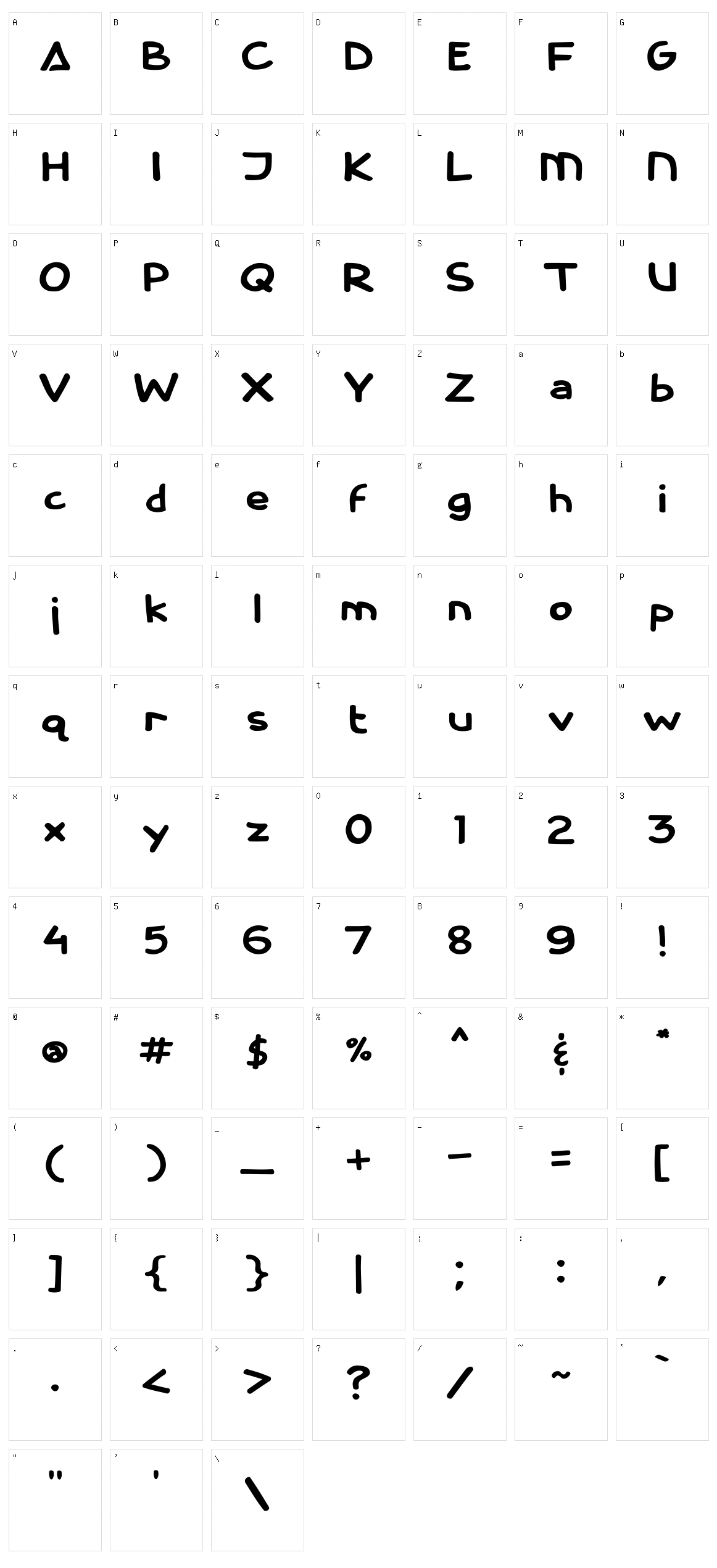
The free font Cassini Marker is carefully designed by letterpunch, showcasing a thoughtful balance of creativity and usability and falls under the Script font style. When you download the ZIP file, it contains only 18.85 KB of font files, making it lightweight and quick to download. Please review the license details below to understand permitted usage and distribution rights. If license information is not available, we recommend using this font for personal projects only or contacting the author directly for commercial usage permissions.